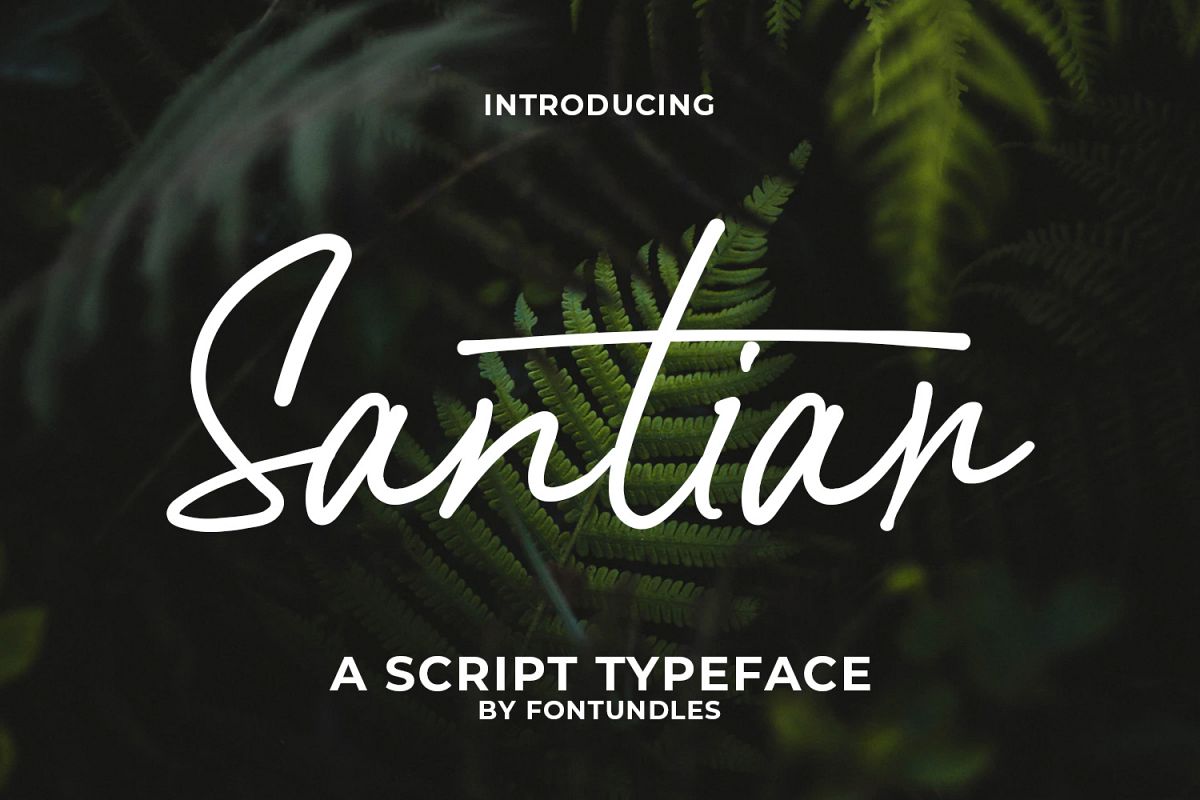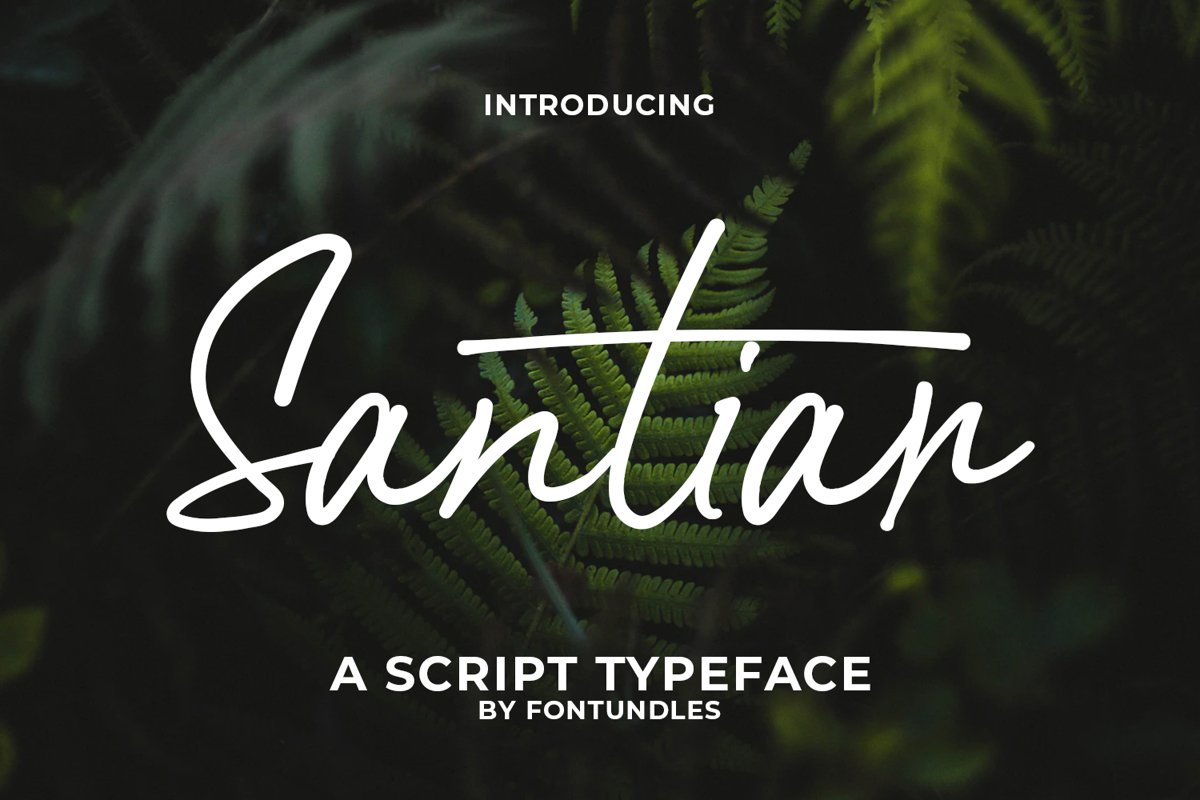
Santiar Is a script typeface. Perfect for quotes, display, signature, logo, logotype, branding, product, header, signature, wedding needs and many more.